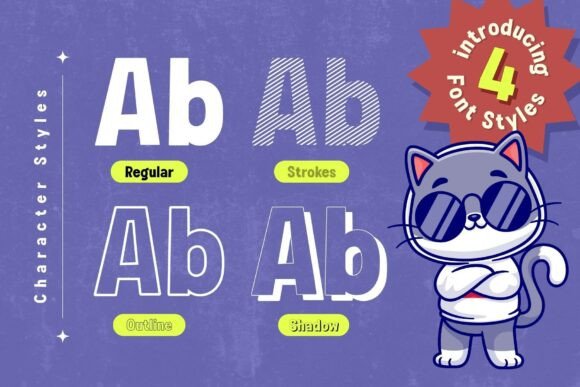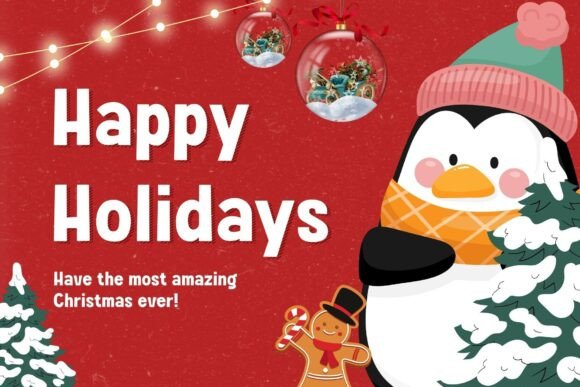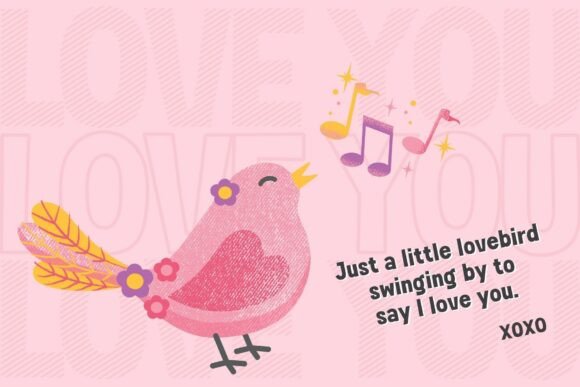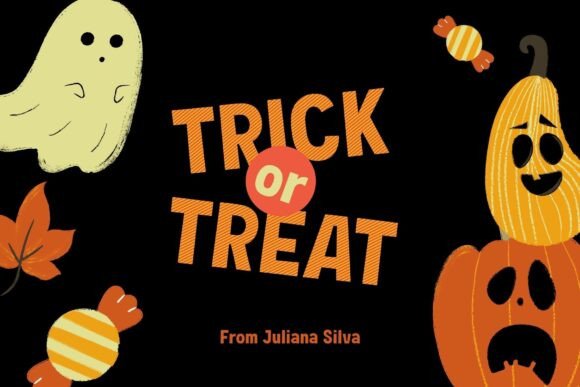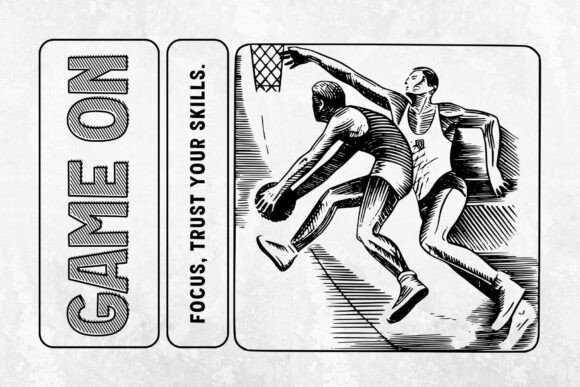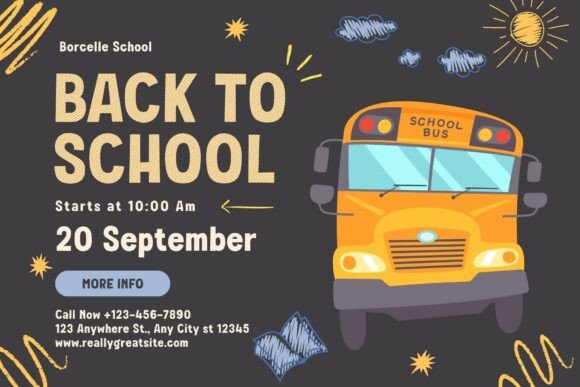
Introduction to Fox Tigger Font Font
Fonts play a crucial role in design, and the Fox Tigger Font font is a typeface that brings both character and versatility to any project. Whether you’re working on a branding project, a website, or a print design, the Fox Tigger Font font offers a unique style that can elevate your work.
Fox Tigger is a playful and bold display font family designed to bring energy and fun into your creative projects.
With 4 unique stylesβRegular, Strokes, Outline, and Shadow, while the variation of styles makes it easy to mix and match for dynamic typography Whether you want a clean solid look, a textured playful touch, or a stylish outlined effect, Fox Tigger has it all.
Key Features of Fox Tigger Font Font
Why Choose Fox Tigger Font Font?
The Fox Tigger Font font is more than just a typeface β it’s a design tool that helps you communicate your message with style and clarity. Its unique character set and versatile design make it suitable for a wide range of applications, from elegant invitations to bold headlines.
With its carefully crafted letterforms and balanced proportions, the Fox Tigger Font font ensures readability and visual appeal across all mediums.
What makes Fox Tigger Font font special?
The Fox Tigger Font font stands out with its unique design, exceptional readability, and versatility across various design applications.